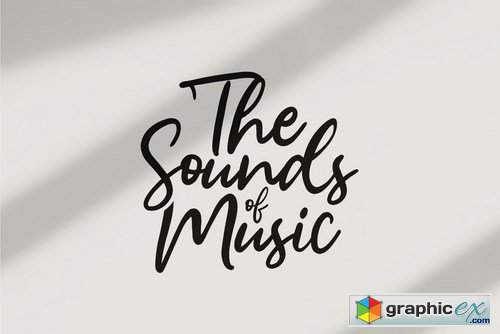
Bantoel Script
Introducing our new font called Bantoel a handwriting style typeface for your next creative project such as logos, printed quotes, invitations, cards, product packaging, headers, Logotype, Letterhead, Poster, Apparel Design, Label, and etc.